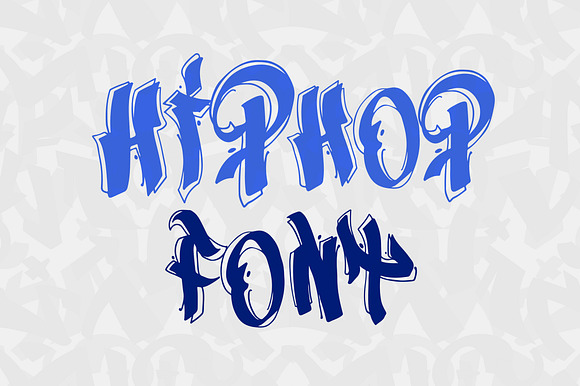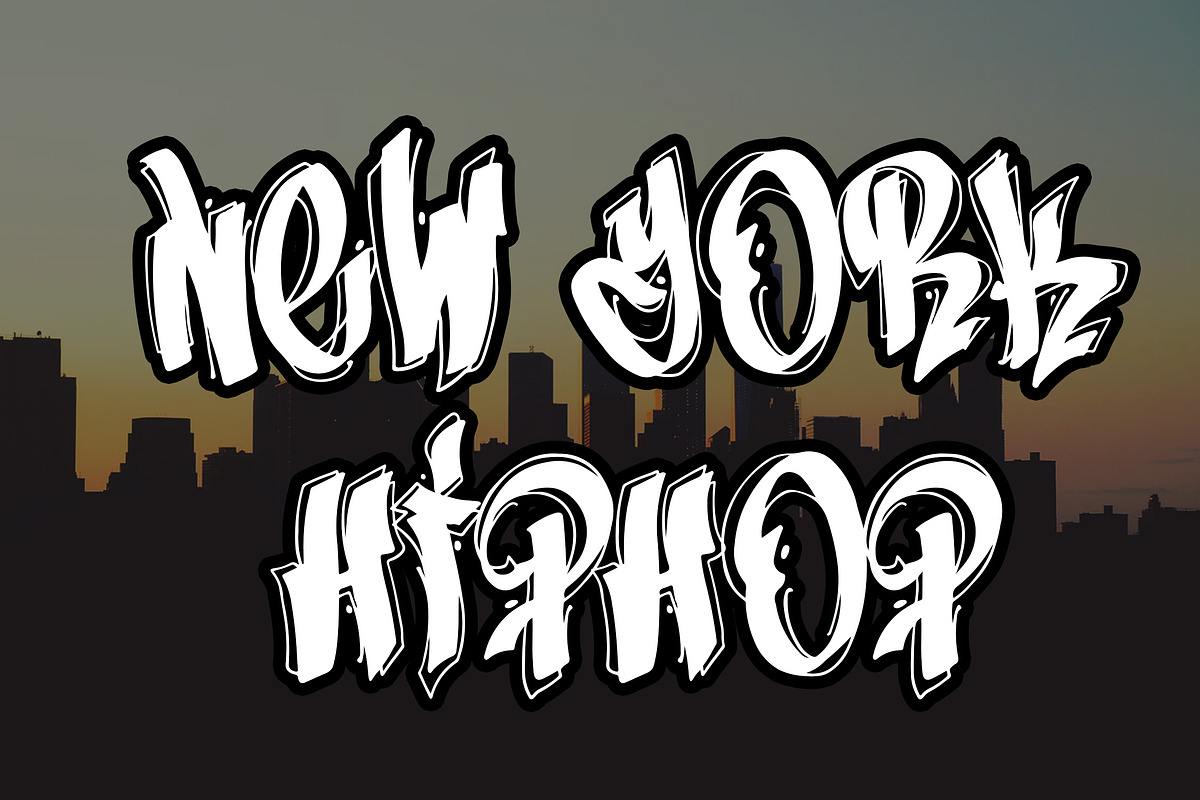
New York Hip Hop Graffiti Font
write your own color graffiti / easy to edit
Why New York Hip Hop Graffiti Font is worth a look
New York Hip Hop Graffiti Font by AntonyChernianu fits naturally into Branding, posters, packaging, typography.